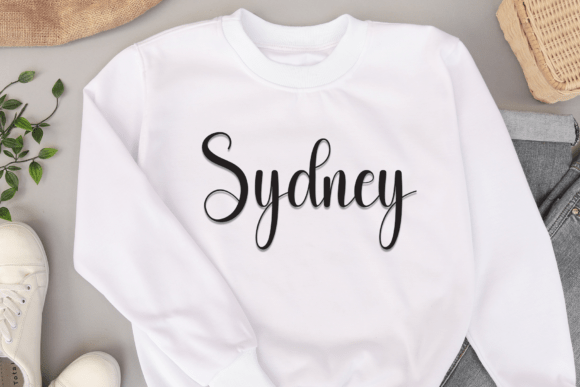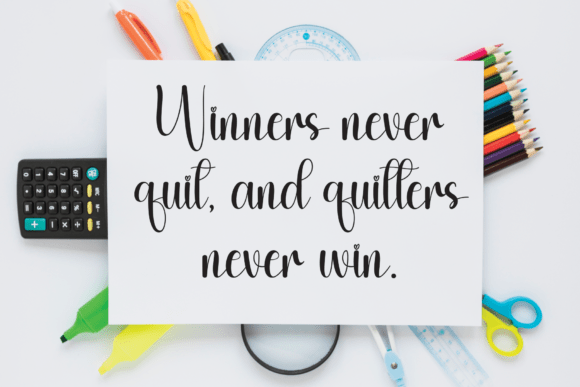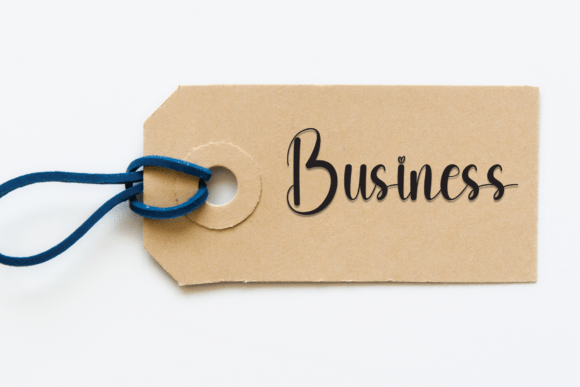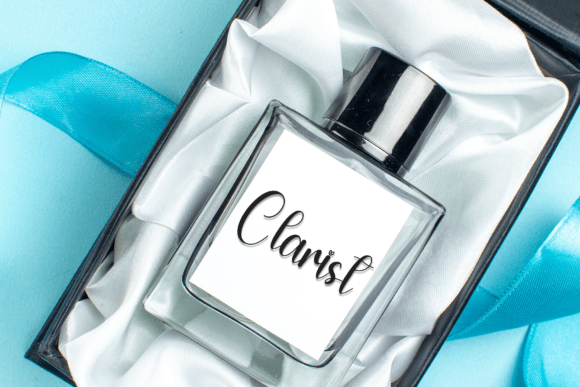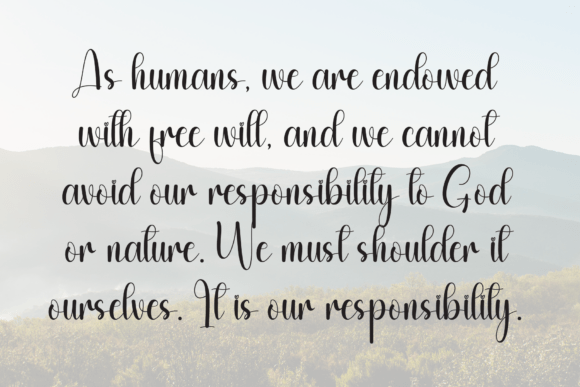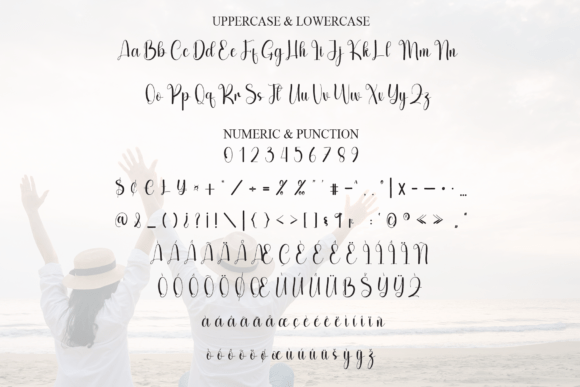
The Sweet Sound of Holiday Cheer: Unwrapping the Magic of Sweet Serenade
It’s that time of the year again when creativity knows no bounds and imagination runs wild – the holiday season is just around the corner! As designers, we’re often tasked with crafting special moments, from enchanting wedding invitations to heartwarming greeting cards. And what better way to make these moments truly unforgettable than with a dash of whimsical charm?
Enter Holiday Font, a carefully crafted display font designed to evoke the essence of the holiday season. Sweet Serenade is a masterful blend of whimsy and finesse, perfect for adding a touch of magic to your designs. Whether you’re working on a festive holiday card or a romantic wedding invitation, this font is sure to captivate your audience and leave a lasting impression. As designers, we’re always on the lookout for that special something that sets our creations apart – and Sweet Serenade is sure to deliver just that.
Holiday Font Key Features
- Unique Characteristics: The font features a unique, hand-drawn aesthetic with intricate details and ornaments, making it ideal for holiday-themed designs.
Holiday Font Review
I recently had the chance to work with the Holiday Font, and I’m excited to share my honest thoughts with you. Overall, I think this font is a great addition to any designer’s toolkit, but it’s not without its limitations.
- ✨ Beautiful, festive feel: The Holiday Font is perfect for any project that needs a touch of holiday cheer. The font is playful and fun, making it great for social media posts, greeting cards, and other festive designs.
- ✨ Wide character set: The font includes a wide range of characters, including punctuation and numbers, which makes it easy to use in a variety of contexts.
- ✨ Easy to customize: The font is highly customizable, with options to adjust the size, color, and style to fit your design needs.
- ⚠️ Limited legibility: At smaller font sizes, the Holiday Font can become difficult to read, which may limit its use in certain contexts.
- ⚠️ Not ideal for body text: While the font is perfect for headings and titles, it’s not the best choice for body text, where readability is crucial.
Overall, I think the Holiday Font is a great choice for designers looking to add some holiday flair to their projects. While it’s not without its limitations, it’s a fun and versatile font that’s sure to bring a smile to your users’ faces.
Practical Application Guide for Holiday Font
Tips for Getting the Most Out of Holiday Font
Use bold and italic styles to add emphasis to your text.
Experiment with different font sizes and colors to create a festive atmosphere.
Combine Holiday Font with other festive graphics and elements to create a cohesive design.
Holiday Font is perfect for:
Creating invitations and party decorations.
Designing holiday cards and gift tags.
Adding a festive touch to social media posts and website banners.
Alternative Holiday Fonts for Designers
Playfair Display is a luxurious, high-end serif font suitable for formal invitations, wedding stationery, and holiday cards. It features elegant connections between letters and a classic feel. Use it for high-end designs that require sophistication and refinement. Compared to Holiday Font, Playfair Display has a more classic and elegant feel, but lacks the playful and festive atmosphere of Holiday Font.
Copperplate is a elegant, copperplate-style font perfect for formal and elegant designs such as holiday cards, invitations, and gift tags. It features a flowing, cursive connection between letters and a classic feel. Use it for designs that require a touch of elegance and sophistication. Compared to Holiday Font, Copperplate has a more formal and elegant feel, but lacks the playful and festive atmosphere of Holiday Font.
Great Vibes is a elegant, modern script font suitable for casual and playful designs such as holiday cards, invitations, and gift tags. It features a flowing, cursive connection between letters and a relaxed feel. Use it for designs that require a touch of playfulness and elegance. Compared to Holiday Font, Great Vibes has a more modern and relaxed feel, but lacks the classic and elegant atmosphere of Holiday Font.